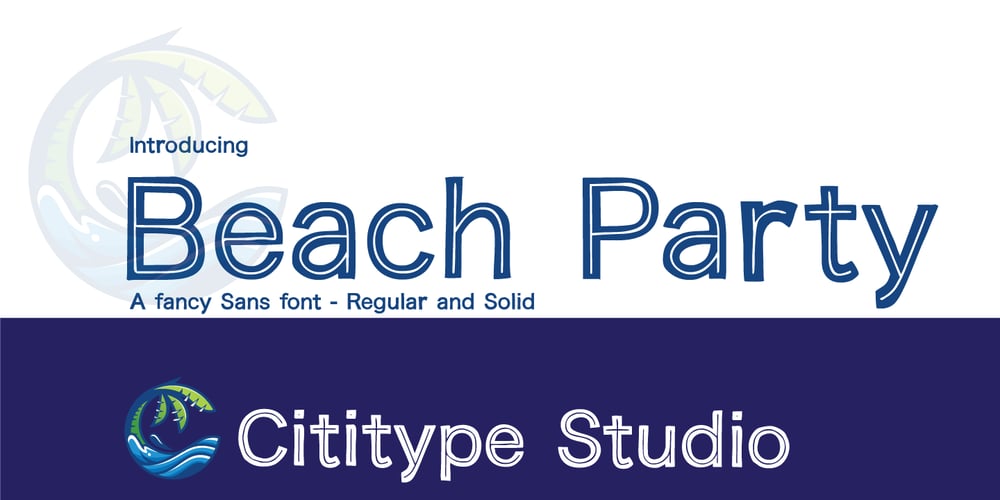
Beach Party
Beach Party font
Beach Party Font Family was designed by Siti Saribanon Nurjannah and published by Cititype. Beach Party contains 2 styles and family package options. Beach Party is a cute and casual display font with an incredibly friendly feel. Whether you’re looking for fonts for Instagram or calligraphy scripts for DIY projects, this font will turn any creative idea into a true piece of art!